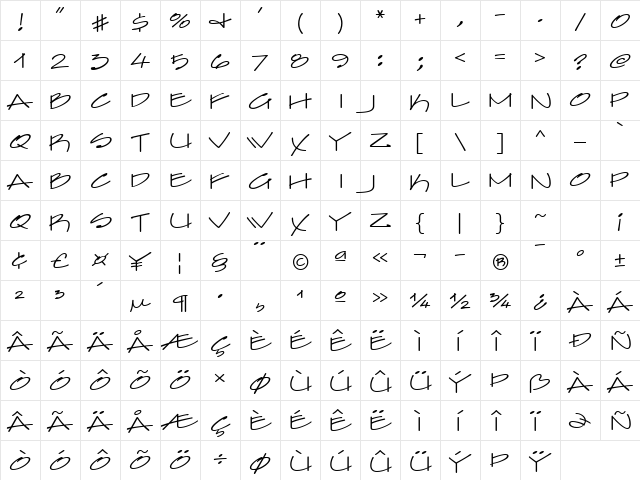
Farfel ICG Pencil Regular
Design Context for Farfel ICG Pencil Typeface
Farfel ICG Pencil is a composed and adaptable typeface that performs quietly and consistently across a wide range of design contexts.